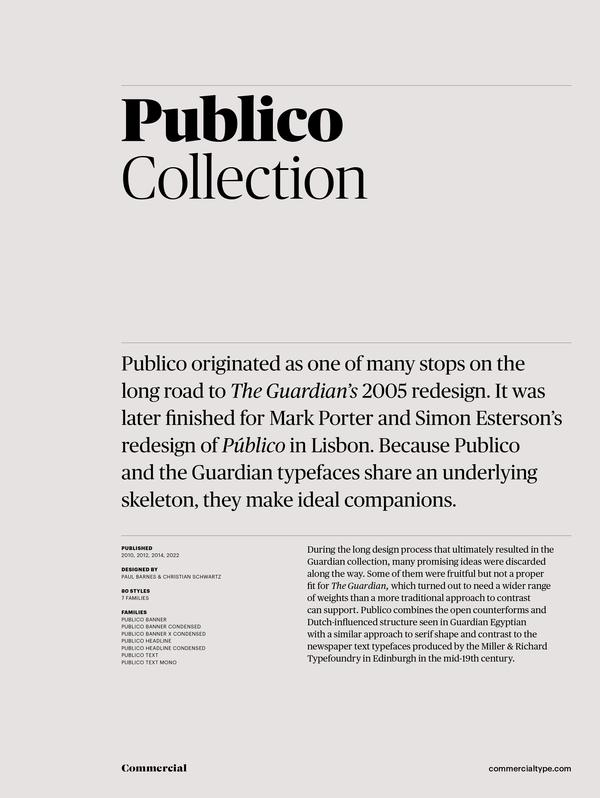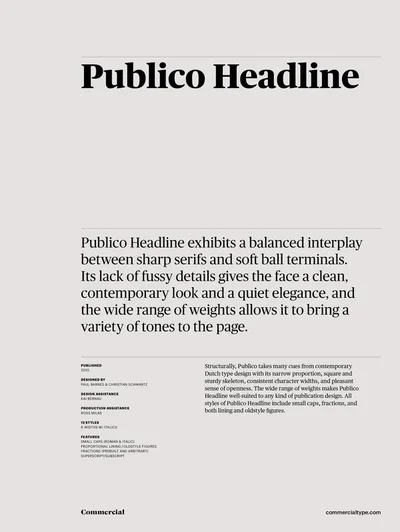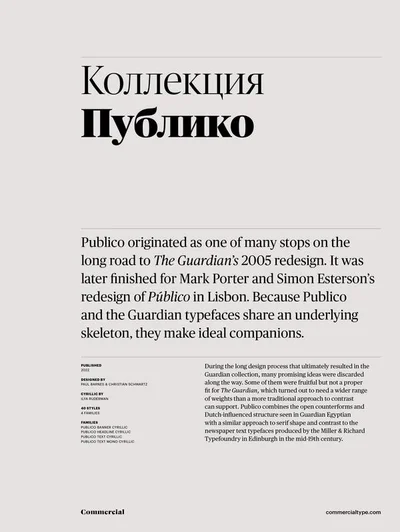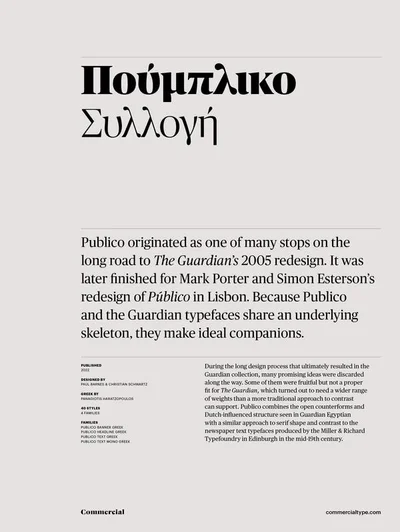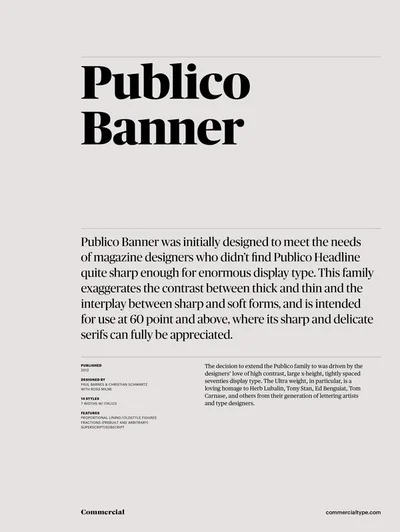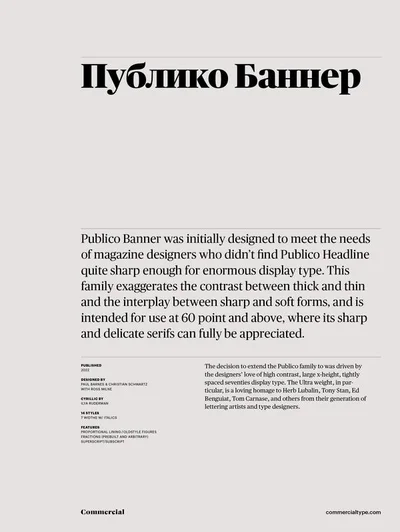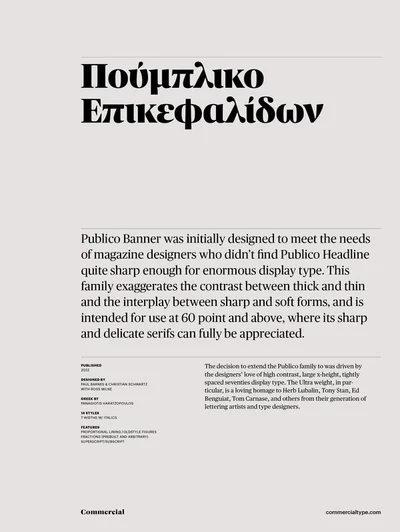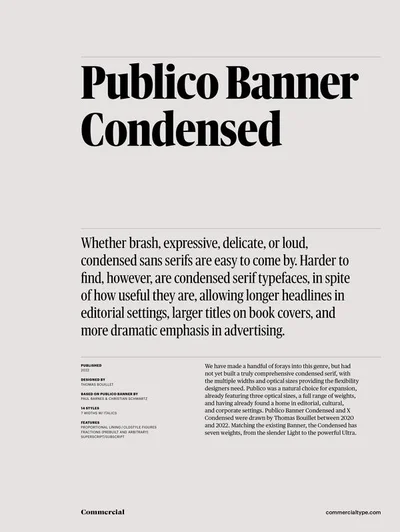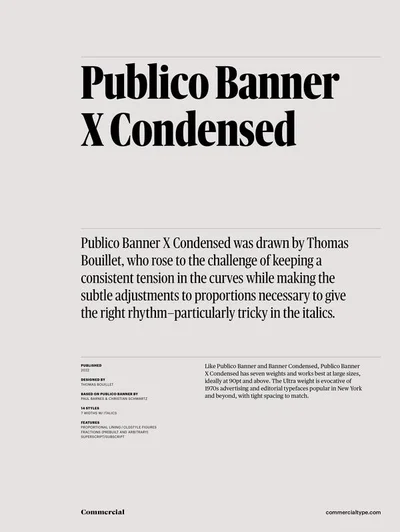
Blanco vs Publico
Blanco and Publico are both serif typefaces sharing a editorial foundation. Where Blanco leans modern, elegant, Publico brings bold, transitional. Compare which suits your Editorial project.
| Feature | Blanco | Publico |
| Language Support | latin, latin-extended | latin, latin-extended, cyrillic, greek |
| Source | Milieu Grotesque | Commercial Type |
Recommended: Blanco
- modern, elegant design character
- Suited for Books
- From milieu-grotesque
Consider: Publico
- bold, transitional design character
- Suited for News and Publishing
- From commercial-type